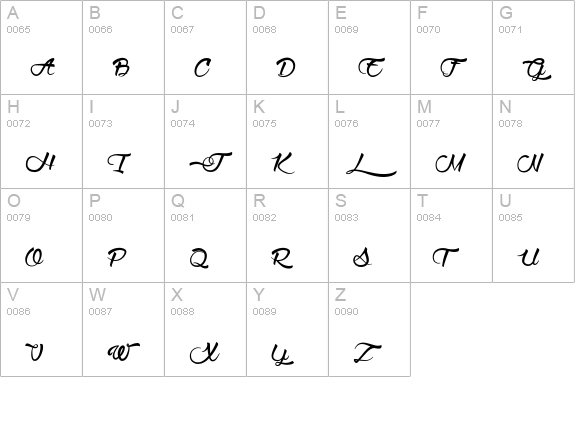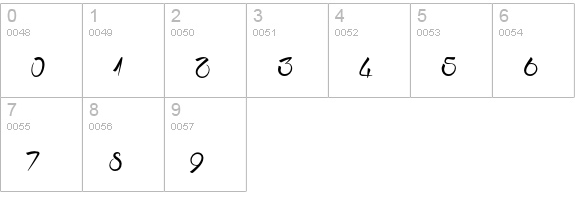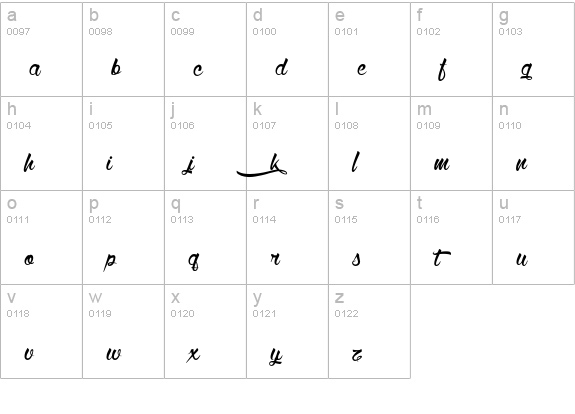
Introducing Wolf in the City font, a striking and modern typeface that combines the fierce elegance of a wolf with the sleek sophistication of a city landscape. This unique font captures the essence of urban living, making it the perfect choice for contemporary designs that demand attention. With its sharp edges and bold presence, Wolf in the City font commands respect and exudes confidence. Each letter is meticulously crafted to showcase a balance between strength and grace, creating a truly captivating visual experience. What sets Wolf in the City font apart is not only its impressive design but also its accessibility. This font is freely available to download at FontsMarket.com, allowing designers, creatives, and typographers of all levels to incorporate this powerful font into their projects without any limitations. Whether you're working on branding, advertising, editorial design, or any other creative endeavor, Wolf in the City font will make a lasting impression. Its versatility allows it to be used in various contexts, from bold headlines to sleek logos, ensuring that your message is delivered with impact. With its modern and captivating aesthetic, Wolf in the City font is the perfect choice for those seeking to make a statement. Embrace the power and elegance of the wolf and the energy of the city with this exceptional font, freely available for download at FontsMarket.com.